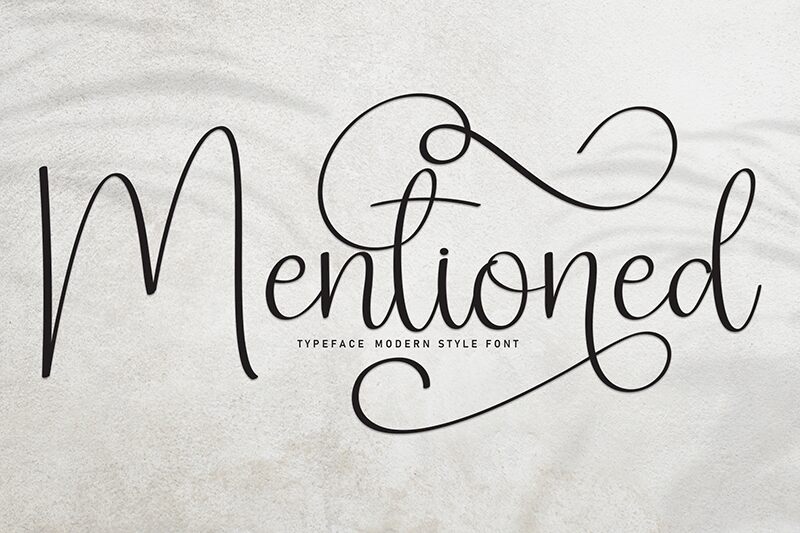
Mentioned
Mentioned font, designed by Scratchones, is a light handwritten font offering an elegant and modern look. Its flowing letterforms suggest the effortless strokes of a pen. The all-round casual signature style makes for approachable designs with etiquette in mind. Lastly, its personalized touch certainly sets it apart from generic fonts.